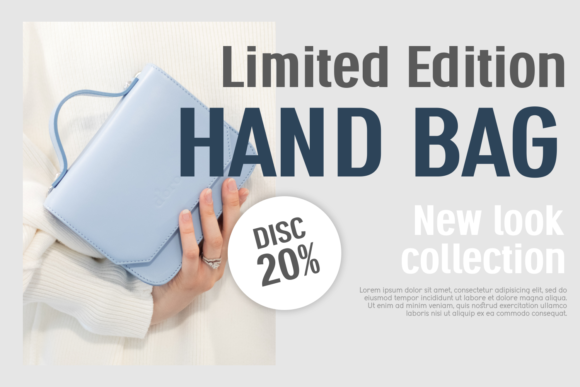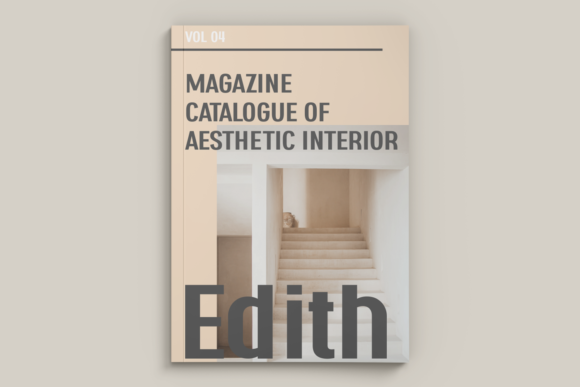
Introduction to Keline Font
Keline is a clear and solemn sans serif font, perfect for items that need impeccable typography.
Use this splendid typeface to add an exquisite touch to your designs .
Key Features of Keline Font
Why Choose Keline Font?
Keline Font offers exceptional quality and versatility, making it a valuable addition to your design toolkit. Whether you’re creating for personal projects or commercial use, Keline Font delivers professional results.